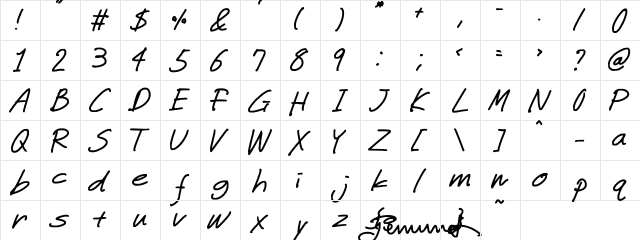
miwaza smart girl Regular
Design Context for miwaza smart girl Typeface
miwaza smart girl is a composed and adaptable typeface that performs quietly and consistently across a wide range of design contexts.